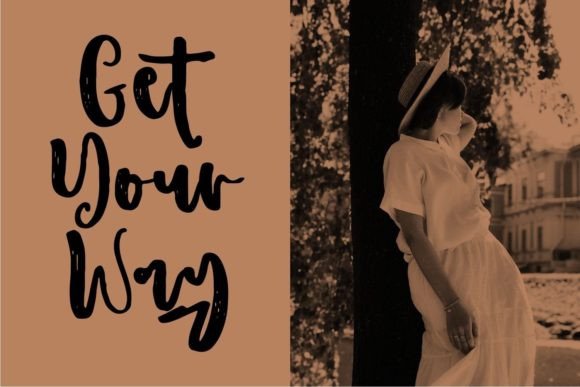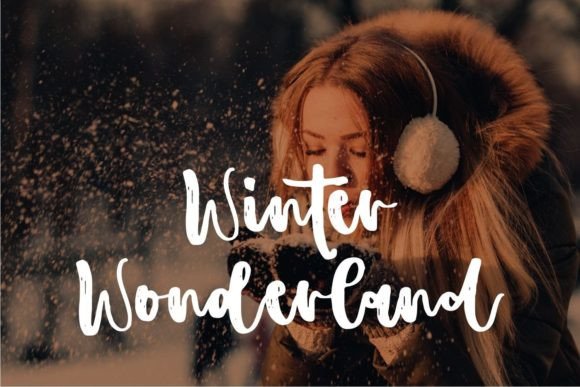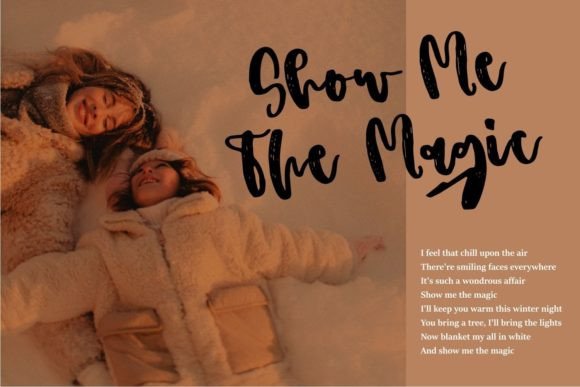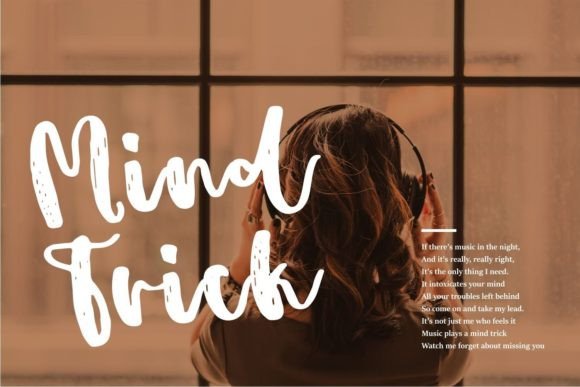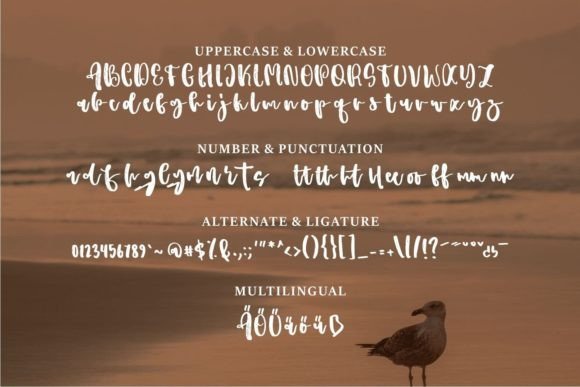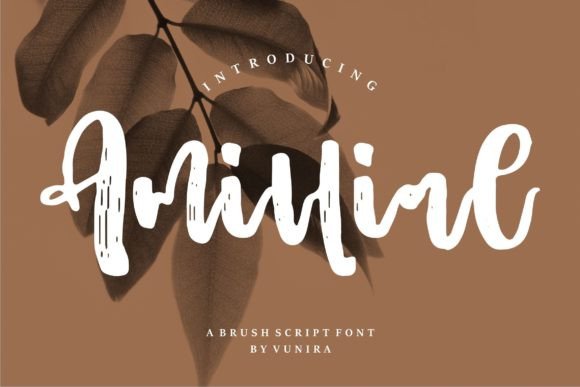
Introducing Amillial Font: The Ultimate Choice for Bold and Fearless Designs
In the world of typography, fonts play a crucial role in conveying messages and evoking emotions. For designers and crafters looking to make a statement, Amillial Brush Script is the perfect choice. This thick, expressive, and loud font is crafted with dry brush imperfections, making it ideal for protest designs and strong statements.
What Makes Amillial Font Stand Out?
Amillial Brush Script is not just another font; it’s an experience. Its unique dry brush texture gives it an edgy, raw feel that’s perfect for designs that demand attention. The font’s imperfections are carefully crafted to evoke a sense of rebelliousness and nonconformity, making it a great choice for protest designs, activist campaigns, and bold statements.
PUA Encoding: Unlocking Endless Creative Possibilities
One of the standout features of Amillial Font is its PUA (Private Use Area) encoding. This means that designers can access a vast array of glyphs and ligatures with ease, unlocking endless creative possibilities. With PUA encoding, you can effortlessly swap out letters, combine glyphs, and experiment with different ligatures to create truly unique designs.
Amillial Brush Script is a versatile font that’s perfect for a wide range of design applications. Whether you’re a graphic designer, a crafty DIY enthusiast, or a social media influencer, this font can help you make a bold statement. Use it to create eye-catching posters, striking social media graphics, or attention-grabbing merchandise.
Key Features of Amillial Font
• Thick and expressive: Amillial Brush Script has a bold, chunky texture that’s perfect for making a statement.
• Dry brush imperfections: The font’s imperfections give it a raw, edgy feel that’s perfect for protest designs and bold statements.
• PUA encoded: Access a vast array of glyphs and ligatures with ease, unlocking endless creative possibilities.
Tips and Tricks for Using Amillial Font
To get the most out of Amillial Brush Script, here are some tips and tricks to keep in mind:
• Experiment with different sizes: Amillial Font looks great in large sizes, but it can also be effective in smaller sizes. Experiment with different sizes to find the perfect fit for your design.
• Combine with other fonts: Amillial Font pairs well with clean, sans-serif fonts. Try combining it with a font like Arial or Helvetica to create a striking contrast.
• Play with glyphs and ligatures: With PUA encoding, you can access a vast array of glyphs and ligatures. Experiment with different combinations to create unique and eye-catching designs.
Amillial Brush Script is a game-changing font that’s perfect for designers and crafters looking to make a bold statement. With its thick, expressive texture and dry brush imperfections, this font is ideal for protest designs and strong statements. Its PUA encoding unlocks endless creative possibilities, making it a versatile choice for a wide range of design applications. So why settle for ordinary fonts when you can make a statement with Amillial Font?
Whether you’re a seasoned designer or a crafty DIY enthusiast, Amillial Brush Script is the perfect choice for anyone looking to add a touch of rebellion and nonconformity to their designs. So go ahead, take a bold step, and make a statement with Amillial Font.